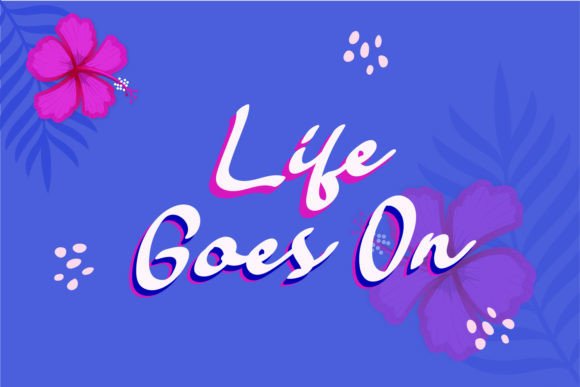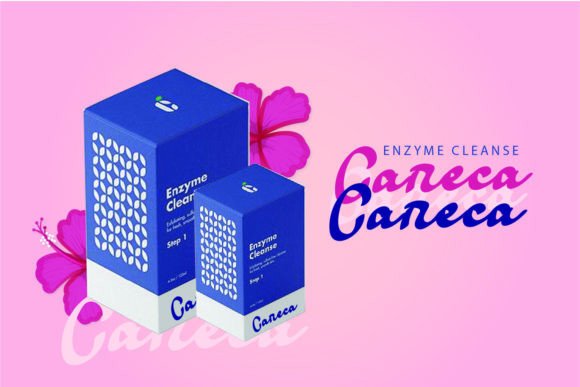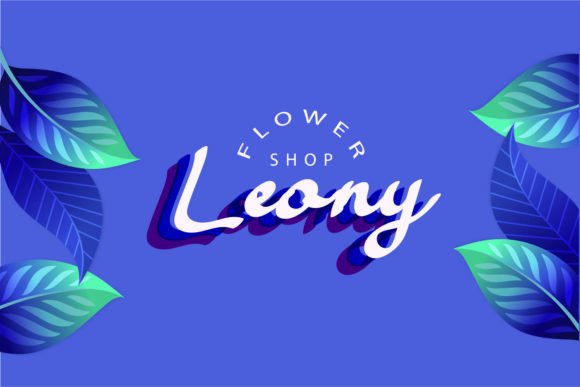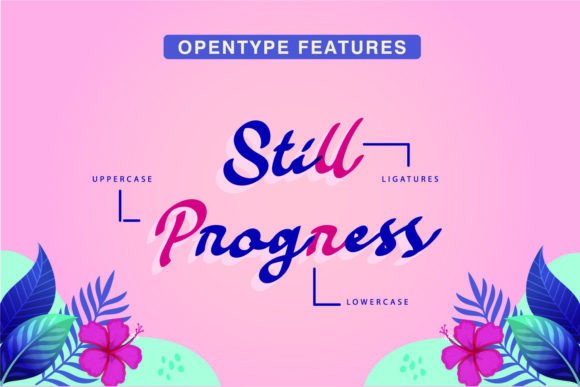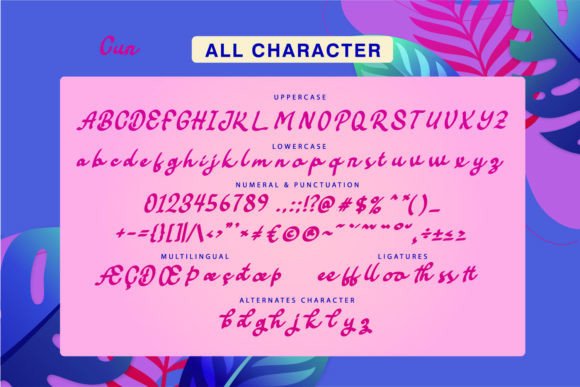
Introduction to Rathiom Font
Do you remember the feeling of stumbling upon an old, leather-bound book in a quaint antique shop? The musty scent, the yellowed pages, and the intricate illustrations that transport you to a bygone era? That’s the magic of Rathiom Font, a romantic, unique, and vintage handwritten font that will capture your heart and inspire your next creative project.
As a designer, you know the value of having a high-quality font that can elevate your designs and make them truly one-of-a-kind. Rathiom Font is more than just a font – it’s a design resource that will add a touch of sophistication and elegance to your work. With its ornate details and charming imperfections, this font is perfect for designers looking to create unique and memorable designs.
And the best part? Rathiom Font is PUA encoded, making it easy to access all the amazing glyphs and ligatures, even on a transparent background. Whether you’re working on a free download or a paid project, Rathiom Font is a valuable addition to your design arsenal.
- High-quality design: Rathiom Font is designed to provide a unique and stylish look for your creative project.
- Large character set: Rathiom Font includes a large character set, including uppercase and lowercase letters, numbers, and punctuation marks.
- Unique and creative style: Rathiom Font features a unique and creative style, making it perfect for designers looking to add a touch of personality to their project.
Honest Review: Rathiom Font
I recently had the chance to work with the Rathiom Font, and I must say, it’s been a game-changer for my creative project. The font’s high quality is immediately apparent, and the transparent background makes it a breeze to use in a variety of design contexts.
One of the things I love about Rathiom Font is its versatility. It’s perfect for everything from logotypes to headings, and its clean lines make it a great choice for modern designs.
- ⚠️ Limited character set, which may be a problem for designers who need a lot of special characters
- ⚠️ Not suitable for very small font sizes, which can make it difficult to read
Overall, I’m really impressed with the Rathiom Font. It’s a great addition to any designer’s toolkit, and its free download makes it a must-have resource for anyone working on a creative project.
Rathiom Font is ideal for creating eye-catching headings, titles, and subtitles for various creative projects, including graphic designs, presentations, and documents.